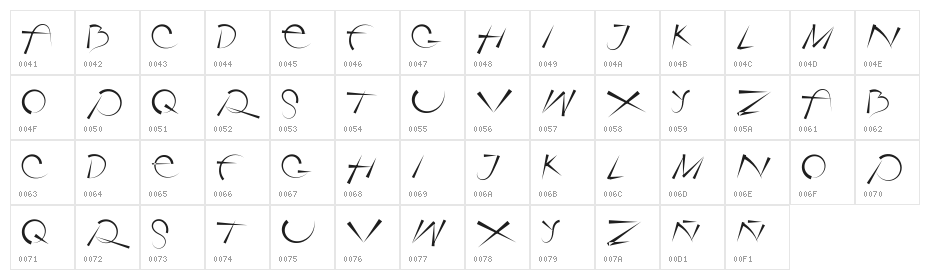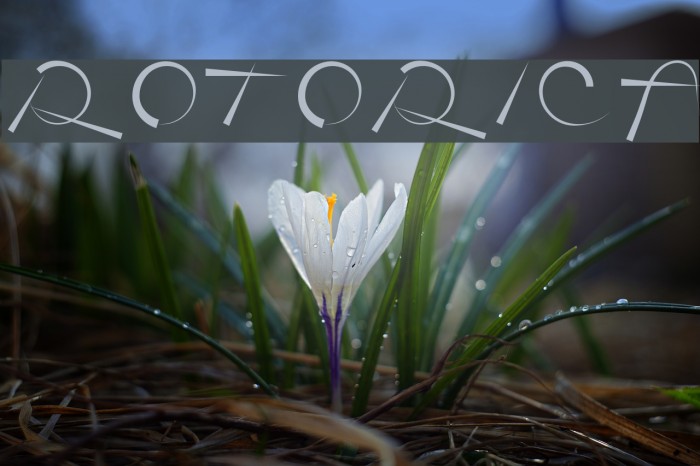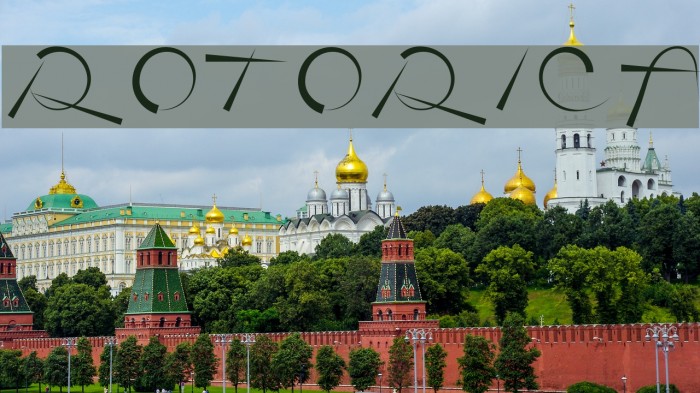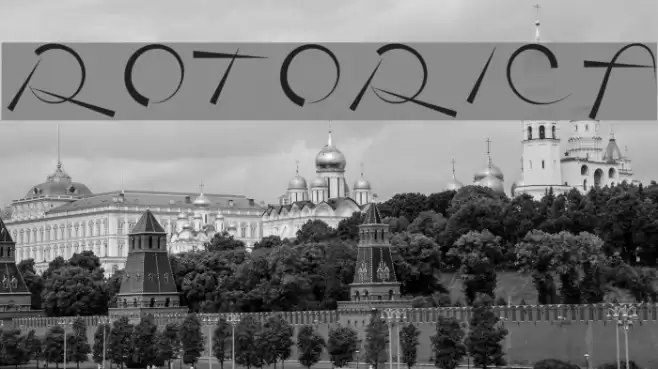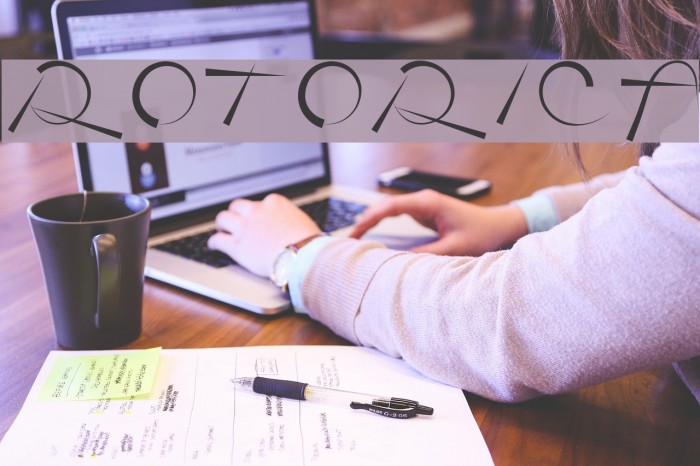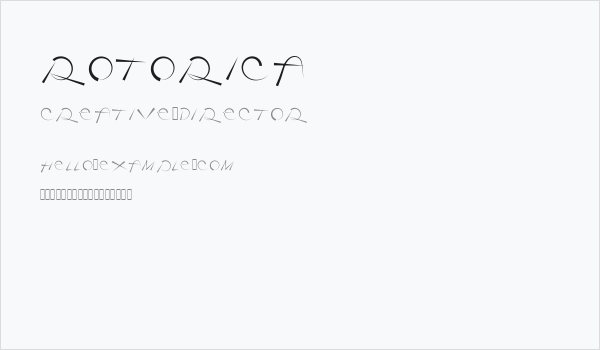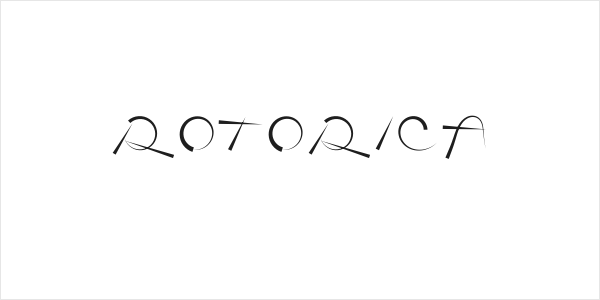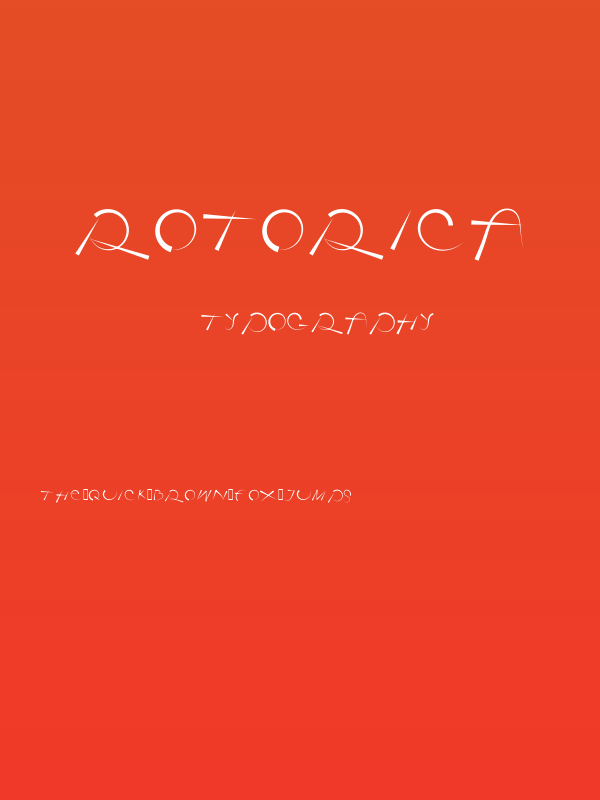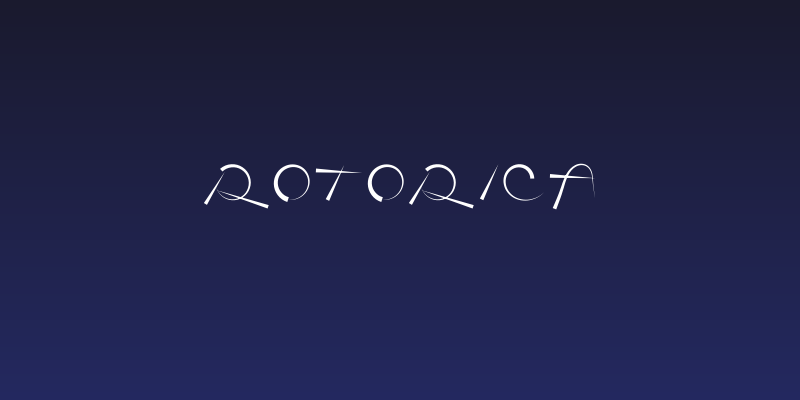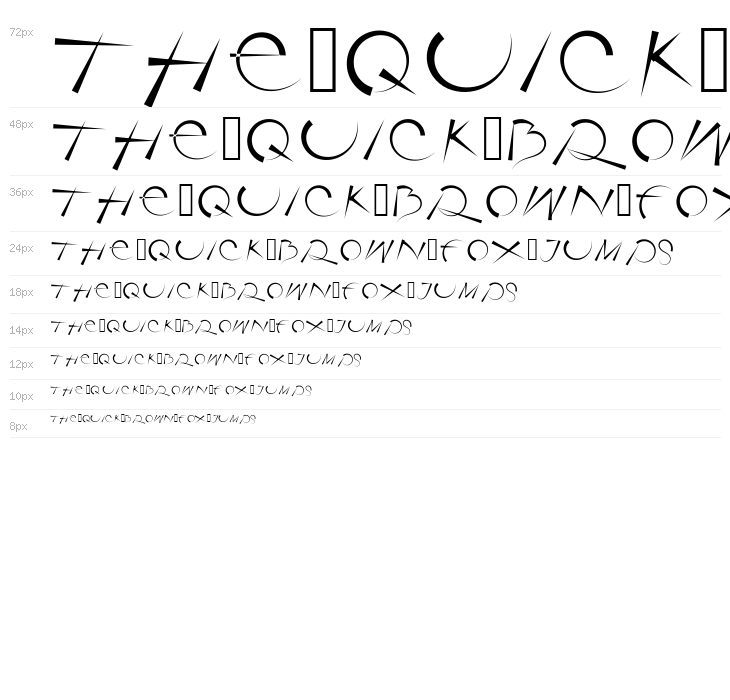
Rotorica Font
Rotorica Description
This font features a unique and modern design with sharp, angular lines and a dynamic flow. The characters are crafted with a sense of motion, incorporating both straight and curved elements that create a sense of speed and energy. The uppercase and lowercase letters maintain a consistent style, with some characters having elongated strokes that add to the overall sleek appearance. The numerals and special characters follow the same design principles, ensuring a cohesive look across all glyphs. This font's distinct style makes it stand out, offering a futuristic and innovative aesthetic.
| Proposed Projects | Ideal for branding, technology-themed projects, modern art designs, and innovative product packaging. |